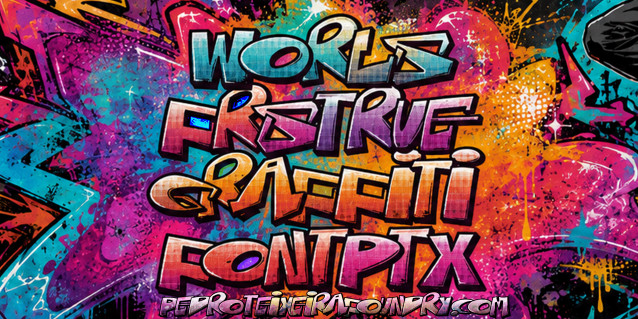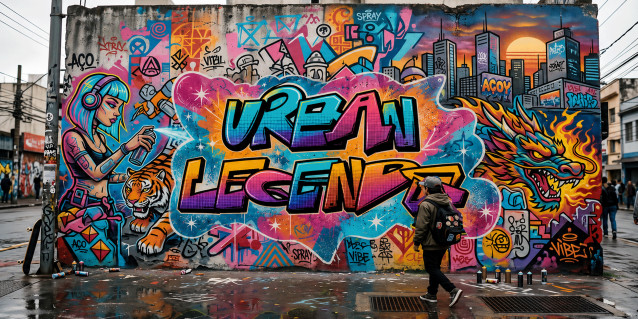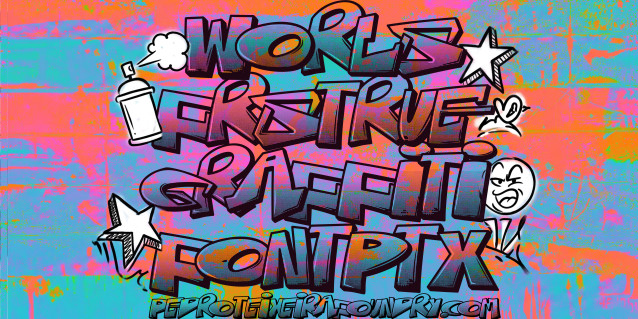
WorlFrs True Graffi Font Regular or aka RawWallGraffitiPTX Regular is a pioneering graffiti display typeface designed to bring the spontaneous construction of authentic street graffiti directly into everyday desktop applications. Without requiring manual letter positioning, image-editing software or additional graphic customization, the font automatically creates irregular overlaps between characters, reproducing the unpredictable rhythm, compression and visual interaction found in genuine graffiti lettering.
Unlike conventional typography, in which spacing and connections generally follow a repeated structure, WorlFrsTrueGraffiFont Regular allows letters to collide, cross and overlap in continuously changing ways. Its advanced contextual OpenType system automatically selects different character forms and combinations according to their position within each word. The resulting lettering feels drawn, layered and individually composed rather than simply typed.
This distinctive behavior makes it possible to create convincing graffiti-style words, headlines and lettering directly inside compatible design, publishing and desktop applications. Users can achieve an energetic street-lettering appearance from the moment they begin typing while retaining the speed, editability and flexibility of a professional digital font.
WorlFrsTrueGraffiFont Regular combines bold hand-drawn letterforms, extensive contextual variation and a deliberately irregular rhythm inspired by spray-painted tags, throw-ups, murals and expressive urban lettering. Each word develops its own structure, with changing silhouettes, shifting overlaps and natural-looking interactions between neighboring characters.